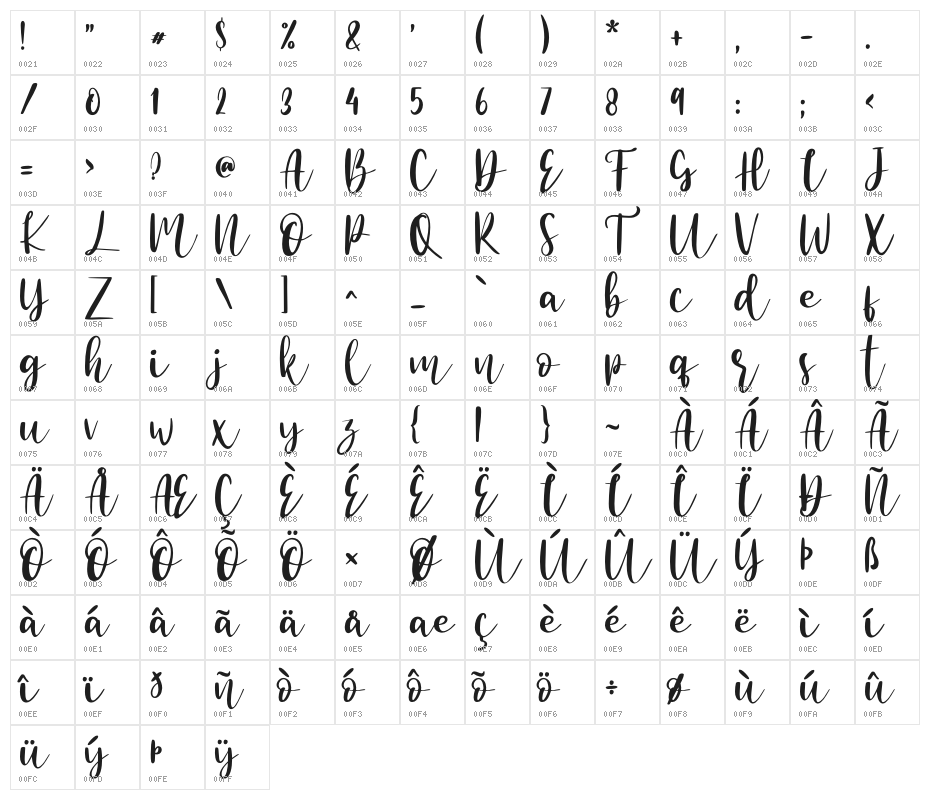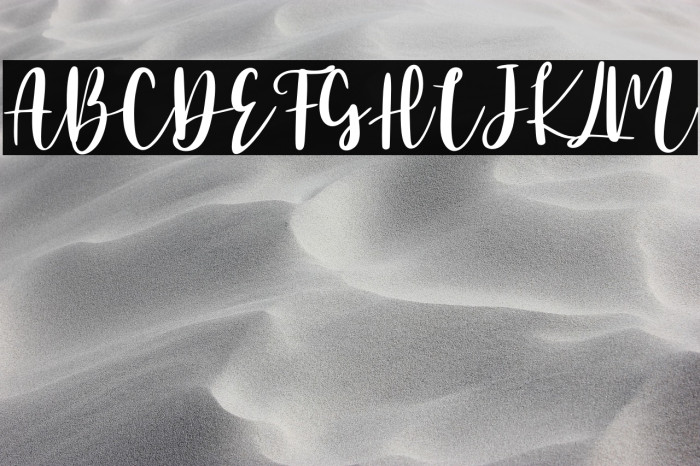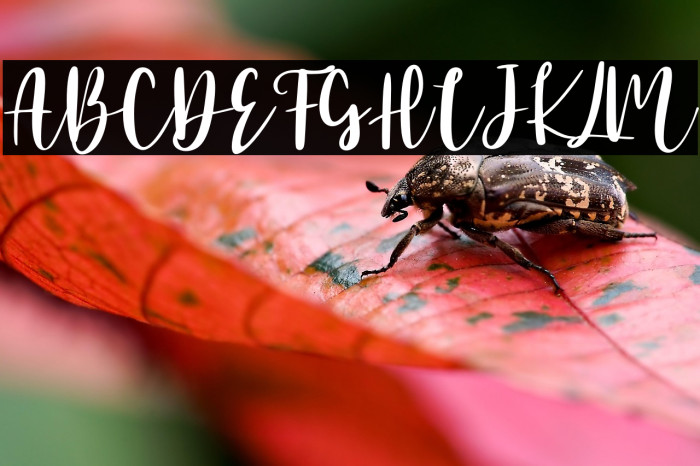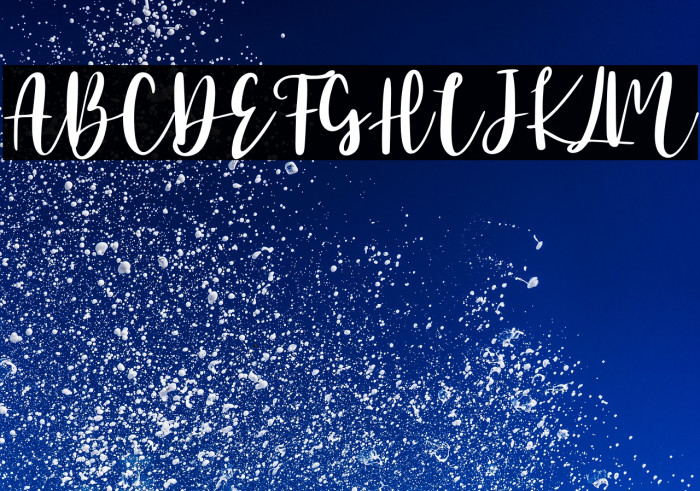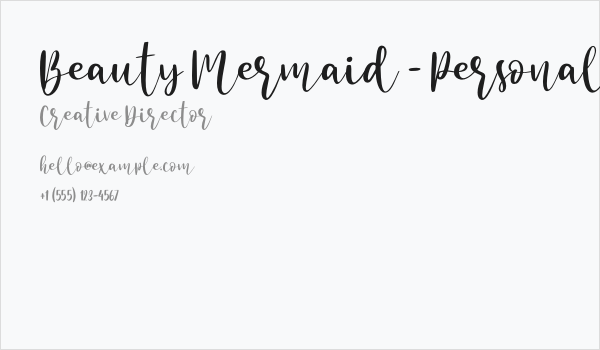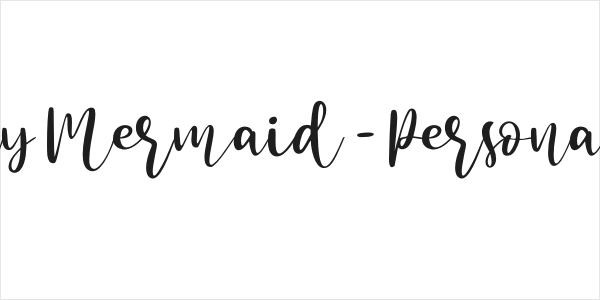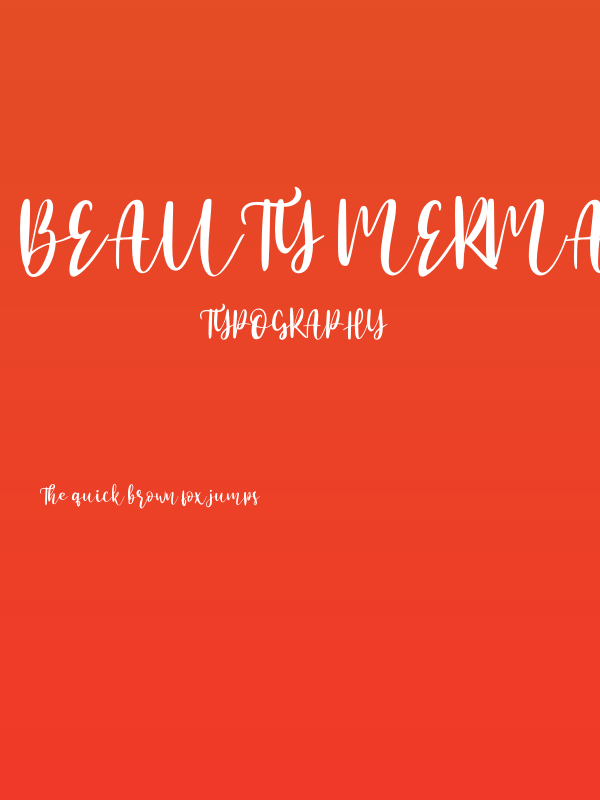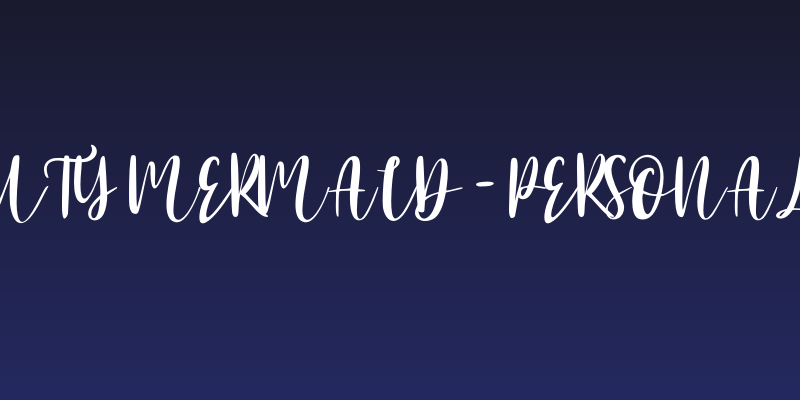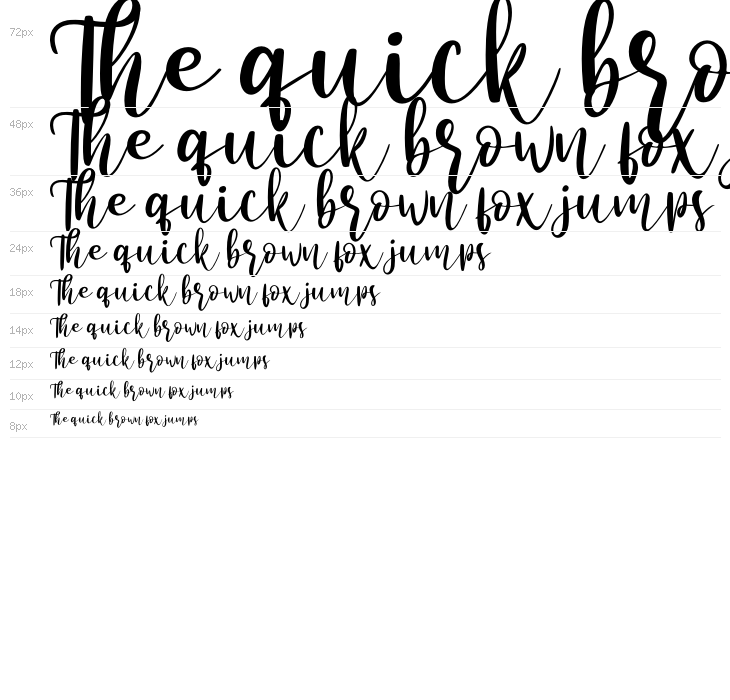
Beauty Mermaid - Personal Use Font
Beauty Mermaid - Personal Use Description
This font features a flowing, cursive style with a playful and elegant touch. The uppercase letters are bold and sweeping, with a distinctive flair that adds personality to each character. The lowercase letters maintain a consistent fluidity, creating a harmonious balance between the characters. Numbers and special characters are designed with the same artistic flair, ensuring a cohesive look across all elements. The overall design is reminiscent of handwritten script, making it ideal for projects that require a personal, artistic touch.
| Proposed Projects | Ideal for wedding invitations, greeting cards, branding, and logo design where a personal and artistic touch is desired. |